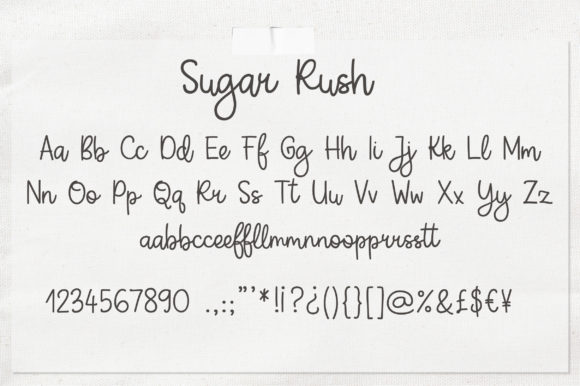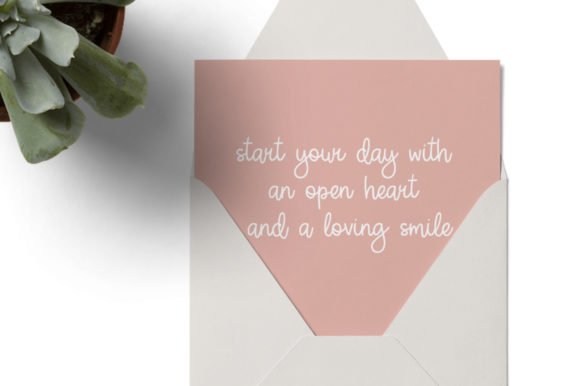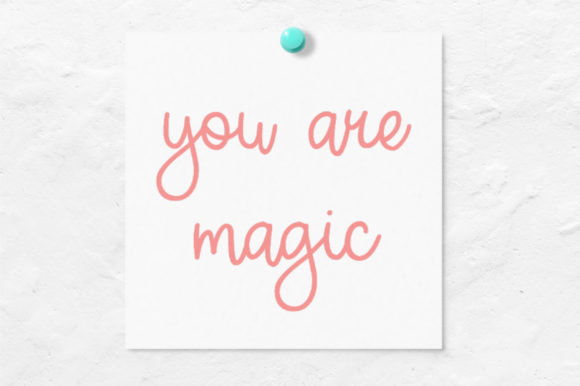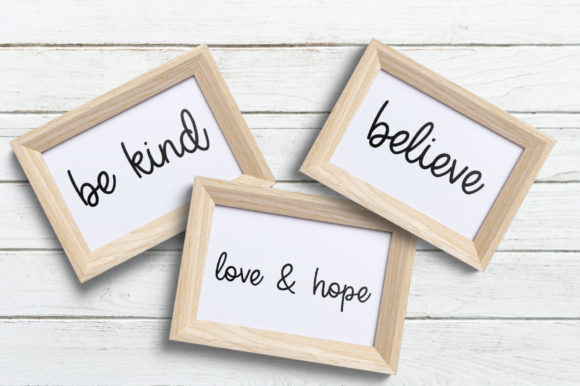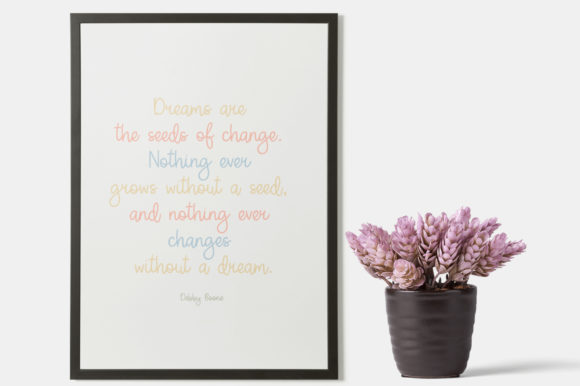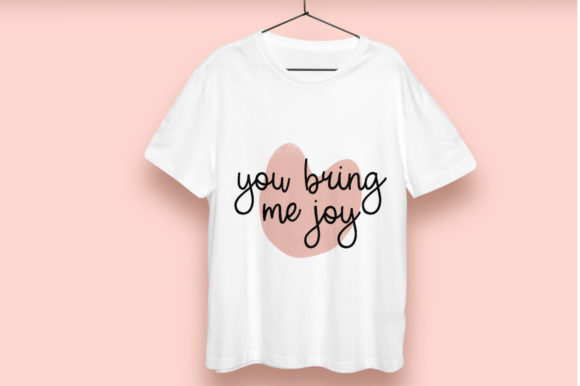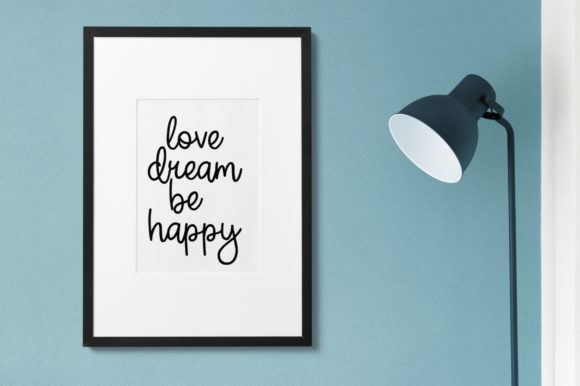
Sugar Rush Font
About Sugar Rush Font
Sugar Rush is a cute handwritten font. Perfect for all your craft projects, branding, and prints, this design is sure to have a wonderful effect and make your creation stand out!